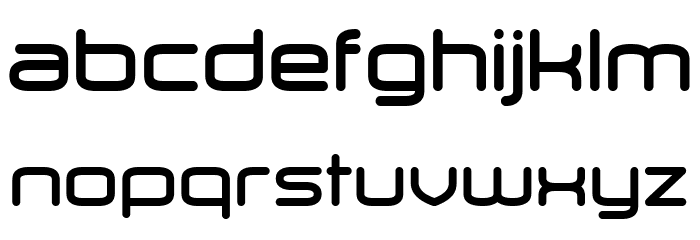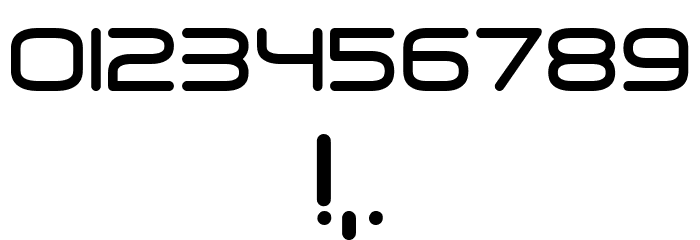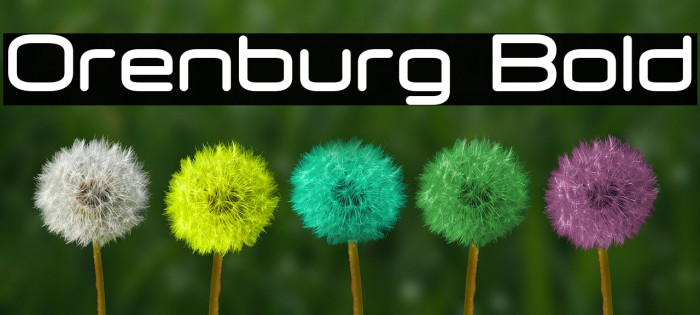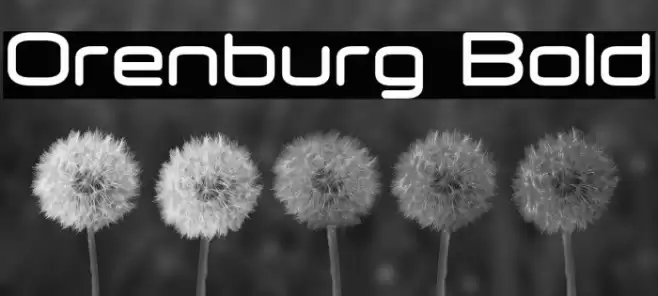
Orenburg Bold Font
This font features a modern, rounded design with a sleek and futuristic appearance. The characters are uniformly bold, with smooth curves and a consistent stroke width that gives it a clean and polished look. The uppercase and lowercase letters maintain a harmonious balance, while the numerals and special characters integrate seamlessly into the overall style. Its geometric structure is evident in the symmetrical shapes and even spacing, making it highly legible and visually appealing. The font's simplicity and elegance make it versatile for various design applications.
A modern, rounded font with a sleek, futuristic design and consistent bold strokes.
- Proposed Projects: Ideal for technology branding, modern web design, product packaging, and futuristic-themed projects.
- Use Case: Headlines, Logos, Branding